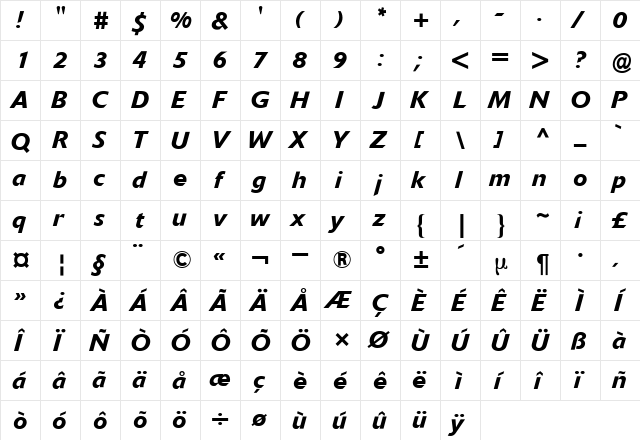
Delta BQ Italic
Design Context for Delta BQ Typeface
Delta BQ offers clean, dependable letterforms without strong stylistic allegiance, making it a practical choice for designers who need flexibility. Its italic angle brings a sense of urgency and motion to the letterforms.
Pro Tip: Try Delta BQ for annotation and caption copy alongside an upright companion — the contrast in angle creates a dynamic but ordered typographic system.